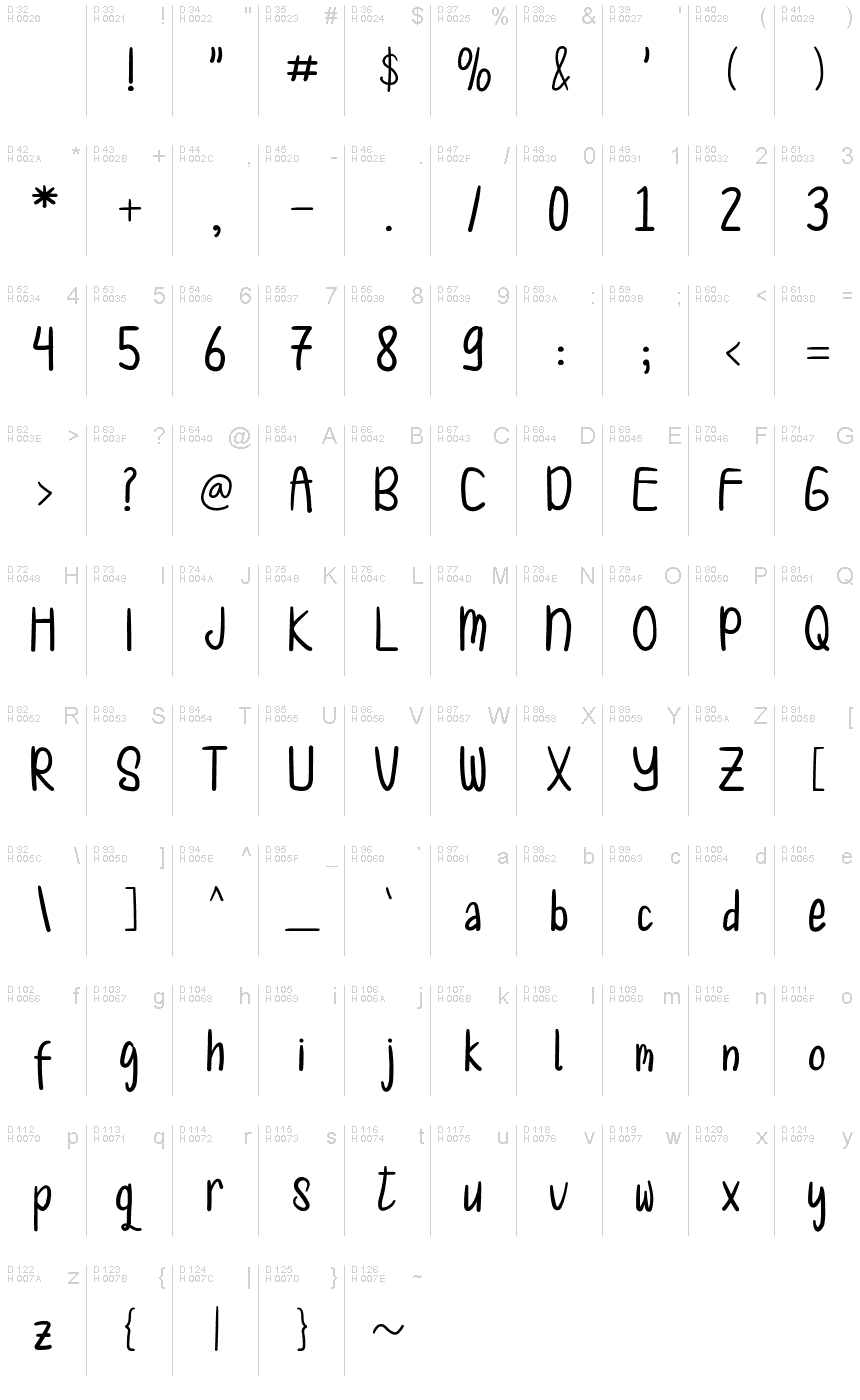
Meghalloria
Meghalloria Font is a Fun Handwritten Display Font designed by Denny Sutanto
that is perfect for all of your craft projects!
This font will elevate a wide range of design projects to the highest level, be it branding, headings, wedding designs, signatures, logos, labels, and much more!